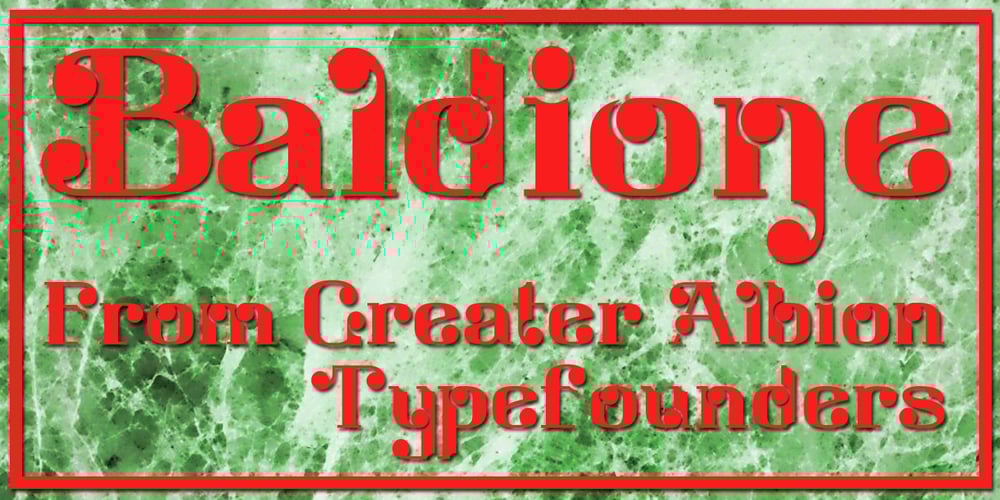
Baldione Font Family was designed by Paul James Lloyd and published by Greater Albion Typefounders. Baldione contains 1 styles and family package options. Baldione is a highly stylised variation upon a classic Didone typeface, incorporating a globular decorative ‘ball’ or ‘blob’ in each character’s design. The result has a feel of the 1970s about it somehow and works well in poster and advertising designs with a hint of the outré’ about them. Balidone includes an extensive range of ligatures and stylistic alternates. Article abstract: Baldione is a highly stylised variation upon a classic Didone typeface, incorporating a globular decorative ‘ball’ or ‘blob’ in each character’s design. The result has a feel of the 1970s about it somehow and works well in poster and advertising designs with a hint of the outré’ about them.